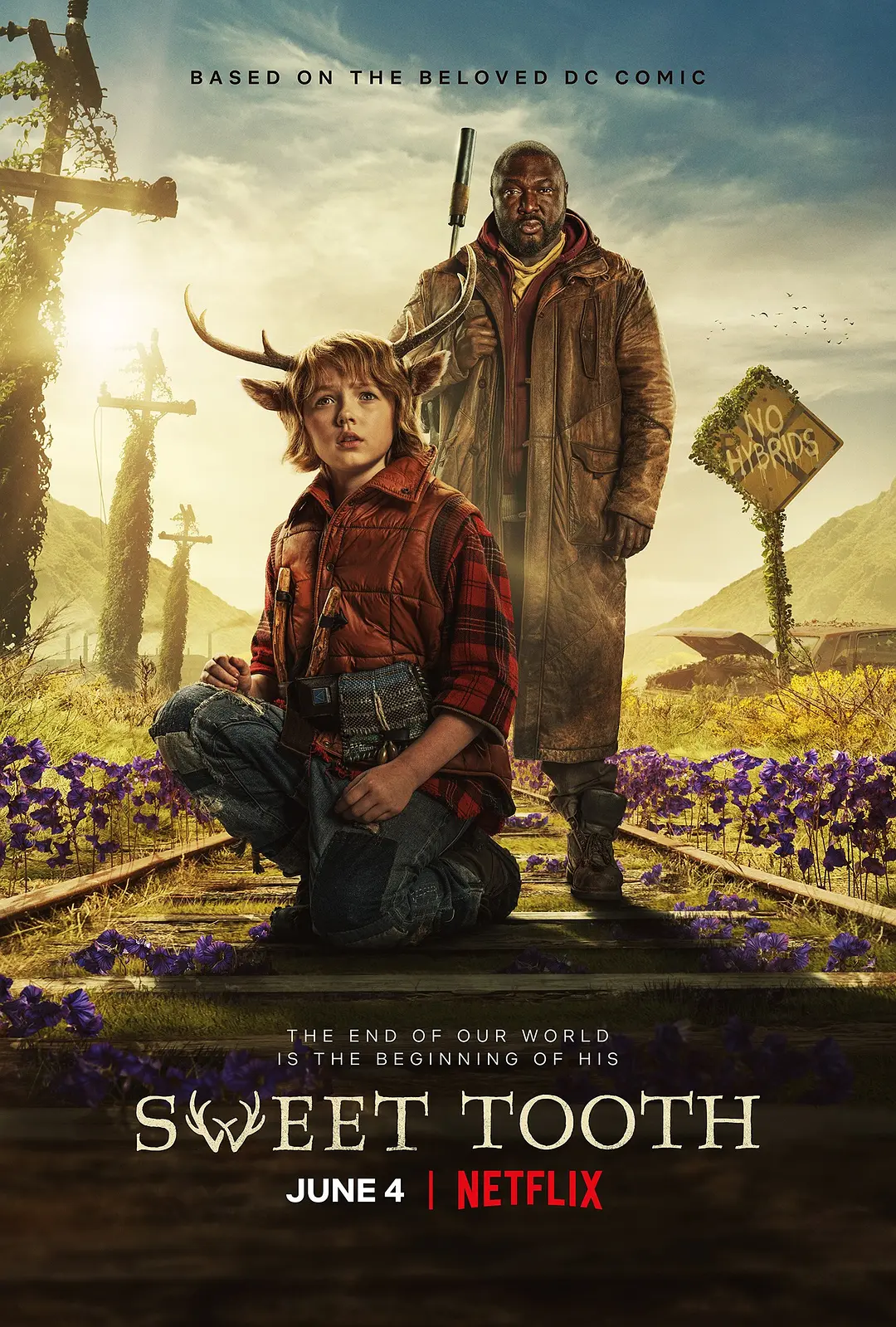
Sweet Tooth Font
AdventureSweet Tooth is a post-apocalyptic dark fantasy series created by Jeff Lemire. It follows the story of a hybrid deer boy named Gus and a drifter named Jepperd as they embark on a journey through a dangerous world inhabited by hybrids and humans.
The title of the "Sweet Tooth" series features the Salden Titling font. Salden, a font collection from Canada Type, pays homage to the famous Dutch lettering artist Helmut Salden. You can find more details about the font family here.